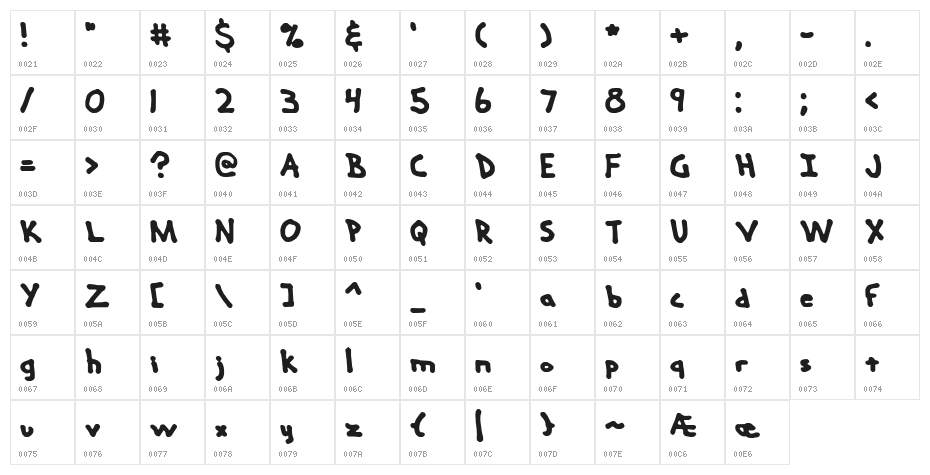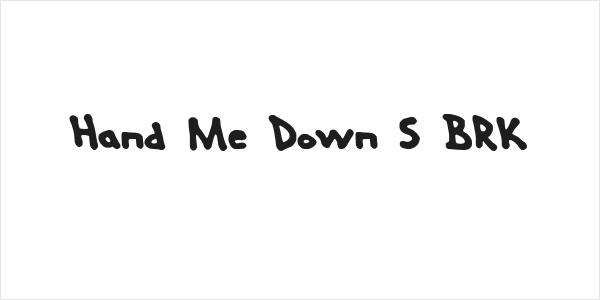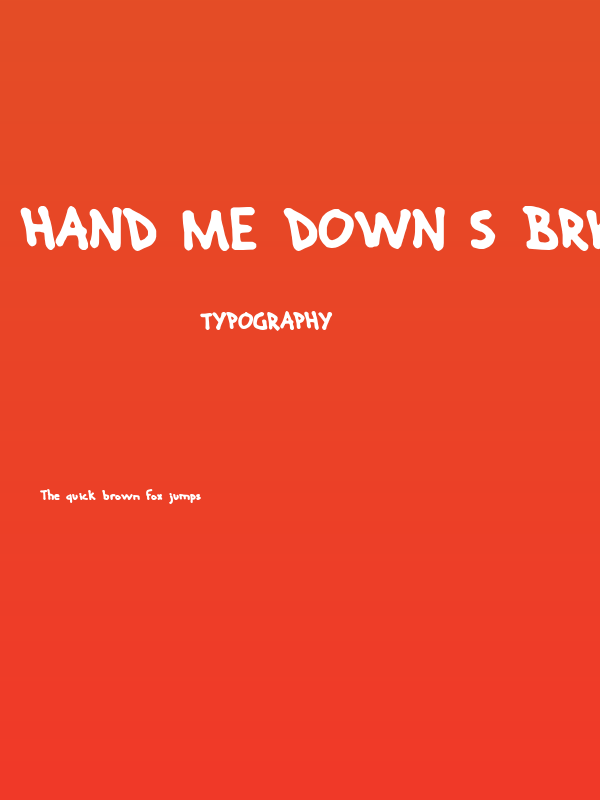
Hand Me Down S BRK Font
Hand Me Down S BRK Description
This font exhibits a playful and informal style, characterized by its bold, hand-drawn appearance. The letters have a slightly irregular shape, giving them a whimsical and casual feel. The strokes are thick and rounded, contributing to a friendly and approachable look. The uppercase and lowercase letters maintain a consistent style, with a noticeable variation in the height and width of individual characters. The numbers and special characters follow the same design principles, ensuring a cohesive appearance across all elements. This font is well-suited for projects that require a fun and engaging aesthetic.
| Proposed Projects | Ideal for children's books, comic strips, playful branding, and casual invitations. |